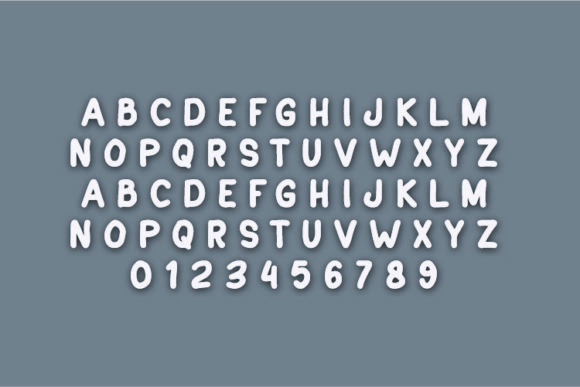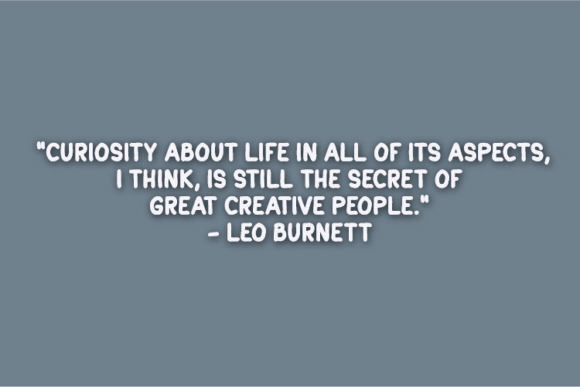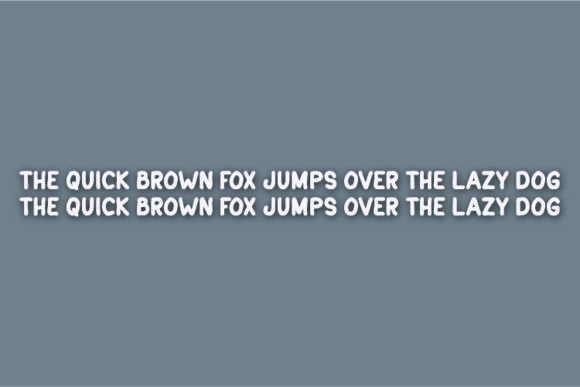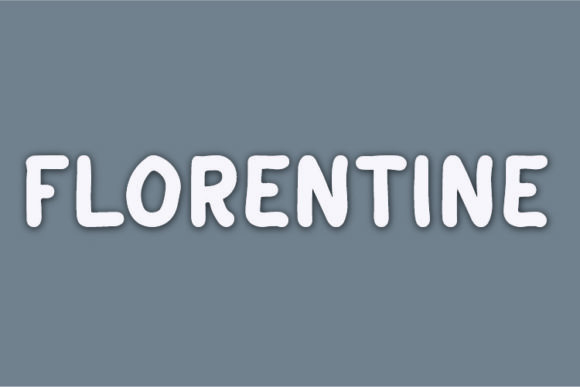
Discover the Charm of Florentine Font: A Clean and Friendly Handwritten Delight
Are you tired of using the same old fonts for your designs and crafts? Look no further than the Florentine Font, a clean and friendly handwritten font that’s perfect for a variety of projects. Whether you’re a designer, crafter, or simply someone who loves to create, Florentine Font is sure to become your new go-to font.
What is Florentine Font?
Florentine Font is a beautiful, handwritten font that’s designed to be both clean and friendly. Its unique charm makes it perfect for a wide range of projects, from digital designs and presentations to crafts and greeting cards. The font’s clean lines and simple elegance ensure that it will never go out of style, making it a versatile choice for any creative project.
Why You’ll Love Florentine Font
So, what makes Florentine Font so special? Here are just a few reasons why you’ll love this amazing font:
• Clean and Friendly Design: Florentine Font features a clean and friendly design that’s perfect for creating beautiful, eye-catching projects. The font’s simple elegance ensures that it will never overwhelm your designs, making it perfect for use in a variety of contexts.
• Versatile: Whether you’re creating digital designs, crafting, or making greeting cards, Florentine Font is the perfect choice. Its versatility ensures that it will work beautifully in any project, no matter the occasion.
• Easy to Read: One of the standout features of Florentine Font is its exceptional readability. Even at small sizes, the font remains clear and easy to read, making it perfect for use in presentations, reports, and other projects where legibility is key.
• Unique Charm: Florentine Font has a unique charm that sets it apart from other fonts. Its handwritten design gives it a personal, friendly feel that’s perfect for creating projects that are both beautiful and engaging.
How to Use Florentine Font
Florentine Font is incredibly easy to use, making it perfect for designers and crafters of all skill levels. Here are a few ideas for using this amazing font:
• Digital Designs: Use Florentine Font to create beautiful digital designs, from social media graphics to blog posts and website headers.
• Crafts: Add a personal touch to your crafts with Florentine Font. Use it to create beautiful handmade cards, gift tags, and other paper crafts.
• Presentations: Make your presentations stand out with Florentine Font. Its clean design and exceptional readability make it perfect for use in slides, reports, and other presentation materials.
• Greeting Cards: Create beautiful, one-of-a-kind greeting cards with Florentine Font. Its unique charm and friendly design make it perfect for use in handmade cards and other paper crafts.
Tips for Getting the Most Out of Florentine Font
To get the most out of Florentine Font, here are a few tips to keep in mind:
• Experiment with Different Sizes: Florentine Font looks great at a variety of sizes, from small and delicate to large and bold. Experiment with different sizes to find the one that works best for your project.
• Pair it with Other Fonts: Florentine Font pairs beautifully with other fonts, from simple sans serifs to elegant scripts. Experiment with different font combinations to find the one that works best for your project.
• Use it in Combination with Images: Florentine Font looks great in combination with images, from simple illustrations to beautiful photographs. Use it to add a personal touch to your projects and make them stand out.
Font Name Florentine Font
Author Hanna Bie
Florentine Font is a clean and friendly handwritten font that’s perfect for designers, crafters, and anyone who loves to create. Its unique charm, versatility, and exceptional readability make it the perfect choice for a wide range of projects, from digital designs and presentations to crafts and greeting cards. Whether you’re looking for a font to add a personal touch to your projects or simply want to try something new, Florentine Font is sure to become your new go-to font.